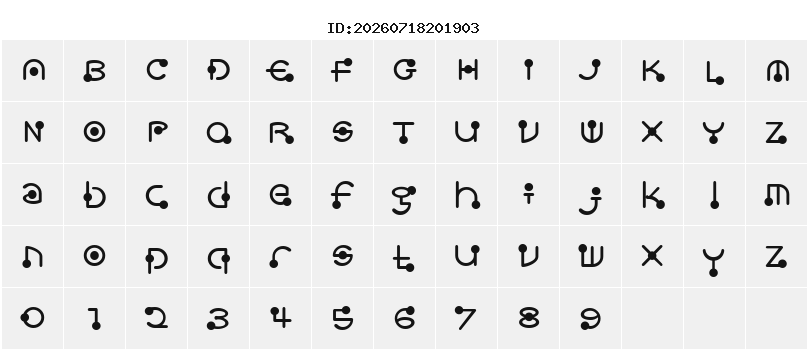
CrazeKATEF Preview
• Font Name: CrazeKATEF
• Full Font Name: CrazeKATEF
About CrazeKATEF.ttf
CrazeKATEF.ttf is a modern, elegant sans-serif font designed for ultimate readability and visual harmony. Perfect for branding, headlines, web design, and print materials.